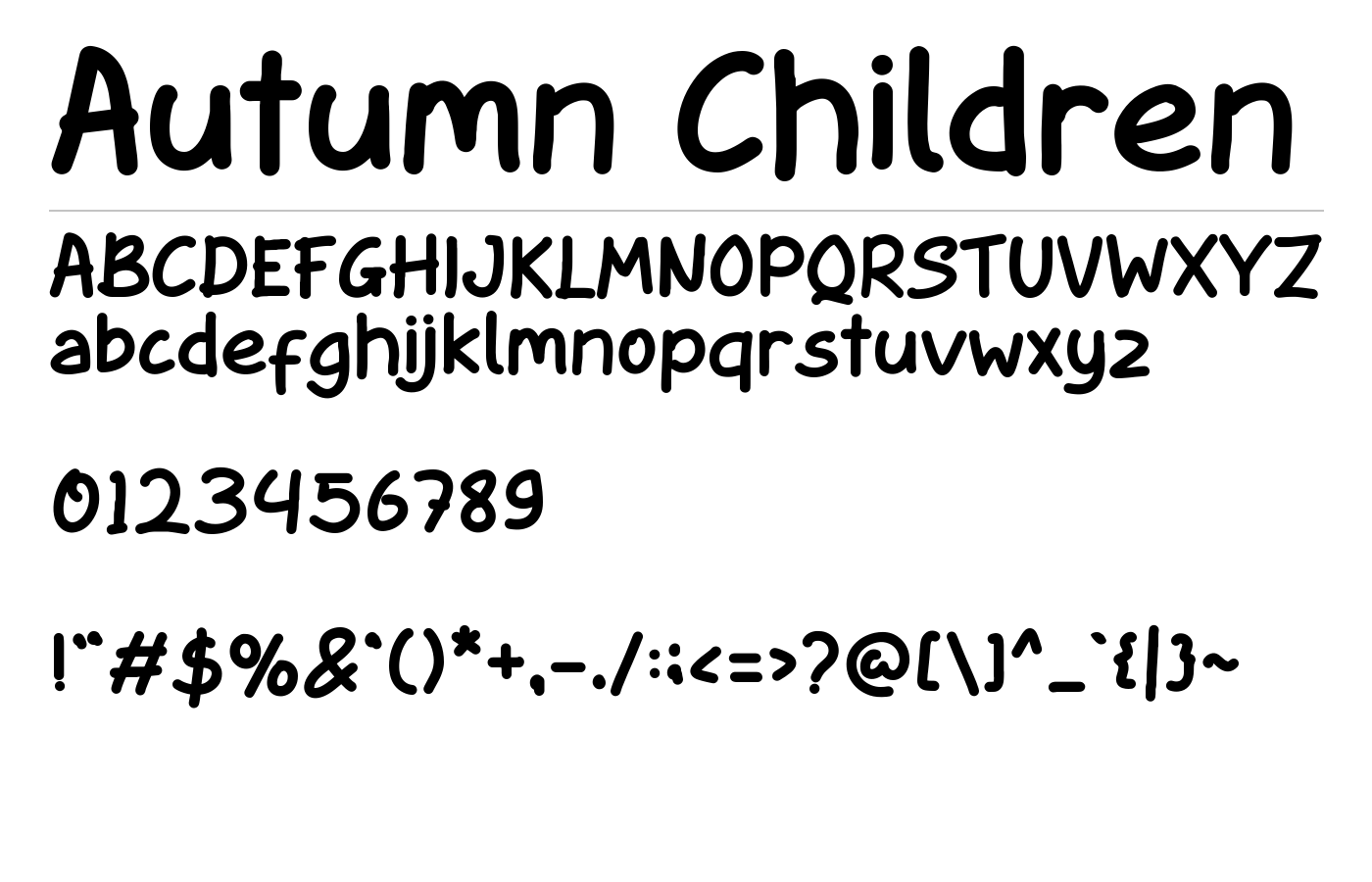
Autumn Children is a playful and friendly sans serif font that mimics casual, hand-drawn lettering with rounded edges and a slightly uneven stroke, giving it a warm, approachable feel. Its medium weight and open letterforms make it ideal for children’s books, informal branding, and creative projects that want to convey fun and simplicity. This font works well for headlines and logos where a relaxed, cheerful vibe is desired.
Autumn Children Font
About Autumn Children Font
| Font family | Autumn Children Font |
| Designer | QR DESIGN |